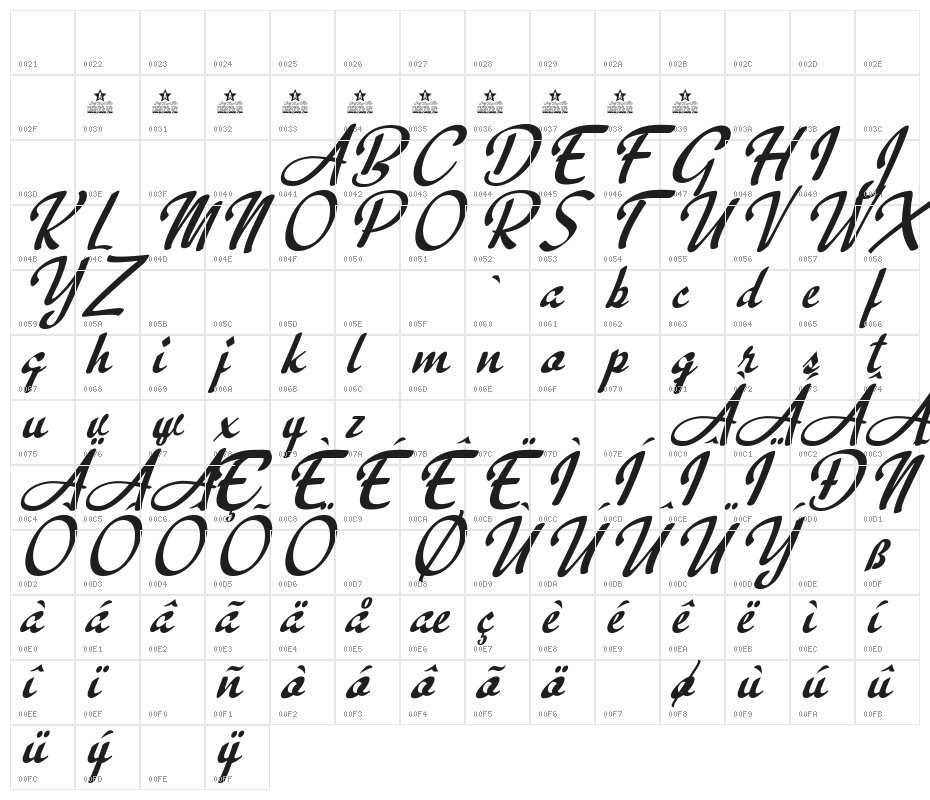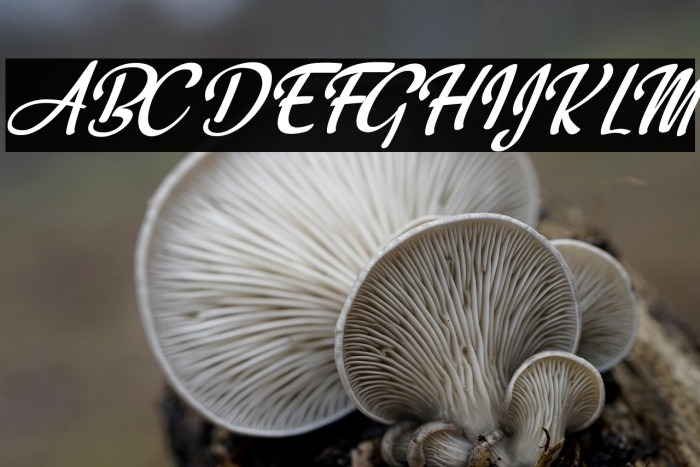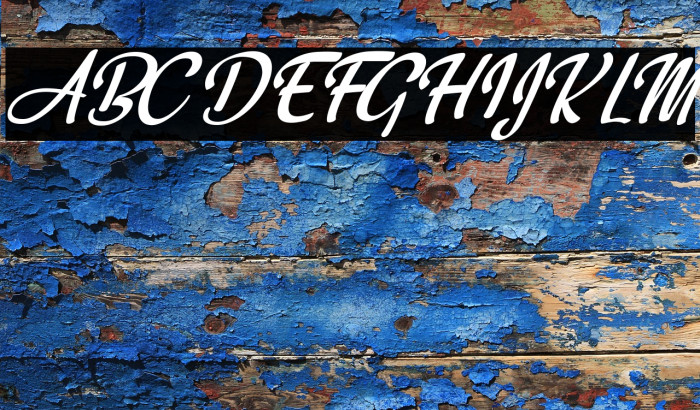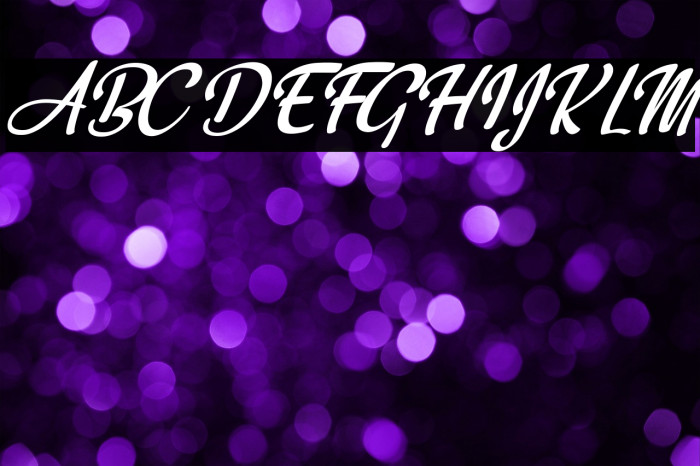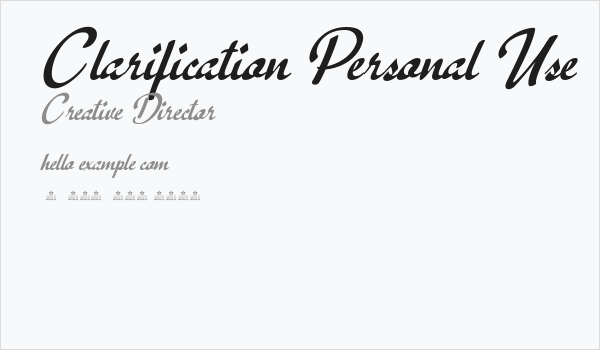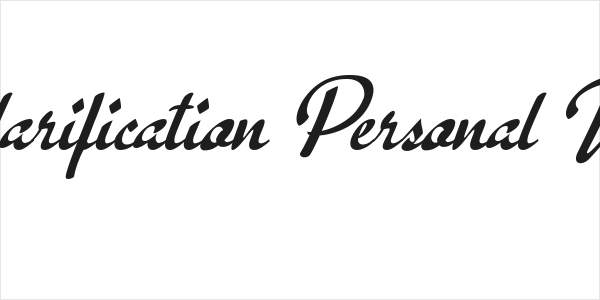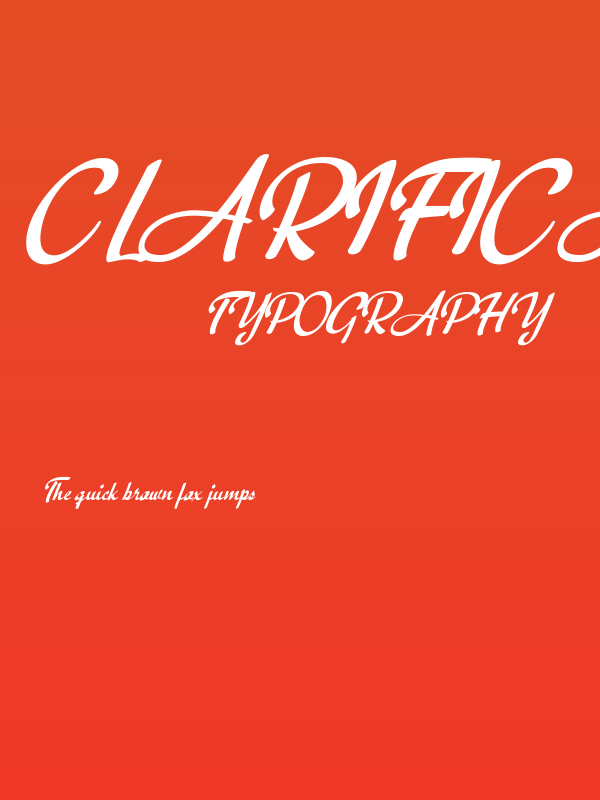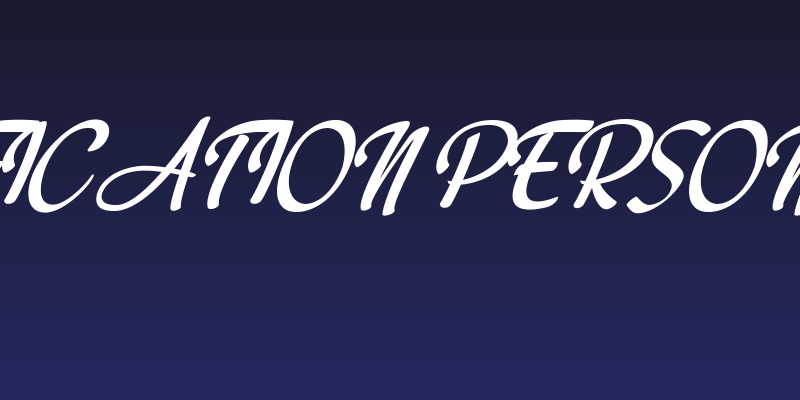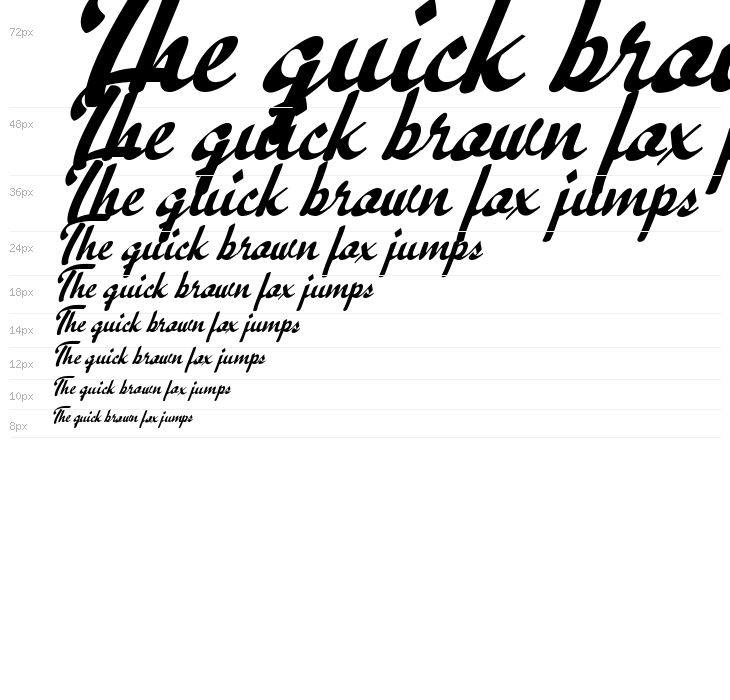
Clarification Personal Use Font
Clarification Personal Use Description
This font features a bold and elegant script style with a flowing, cursive design. The uppercase letters are characterized by their sweeping curves and dramatic flourishes, while the lowercase letters maintain a consistent, connected flow. The overall appearance is both sophisticated and dynamic, making it suitable for a variety of creative applications. The font's bold weight and high contrast between thick and thin strokes enhance its readability and visual impact. Its decorative nature is ideal for projects that require a touch of elegance and flair.
| Use Case | Logos, Headlines, Invitations |
| Proposed Projects | Ideal for wedding invitations, branding, logos, and elegant signage. |